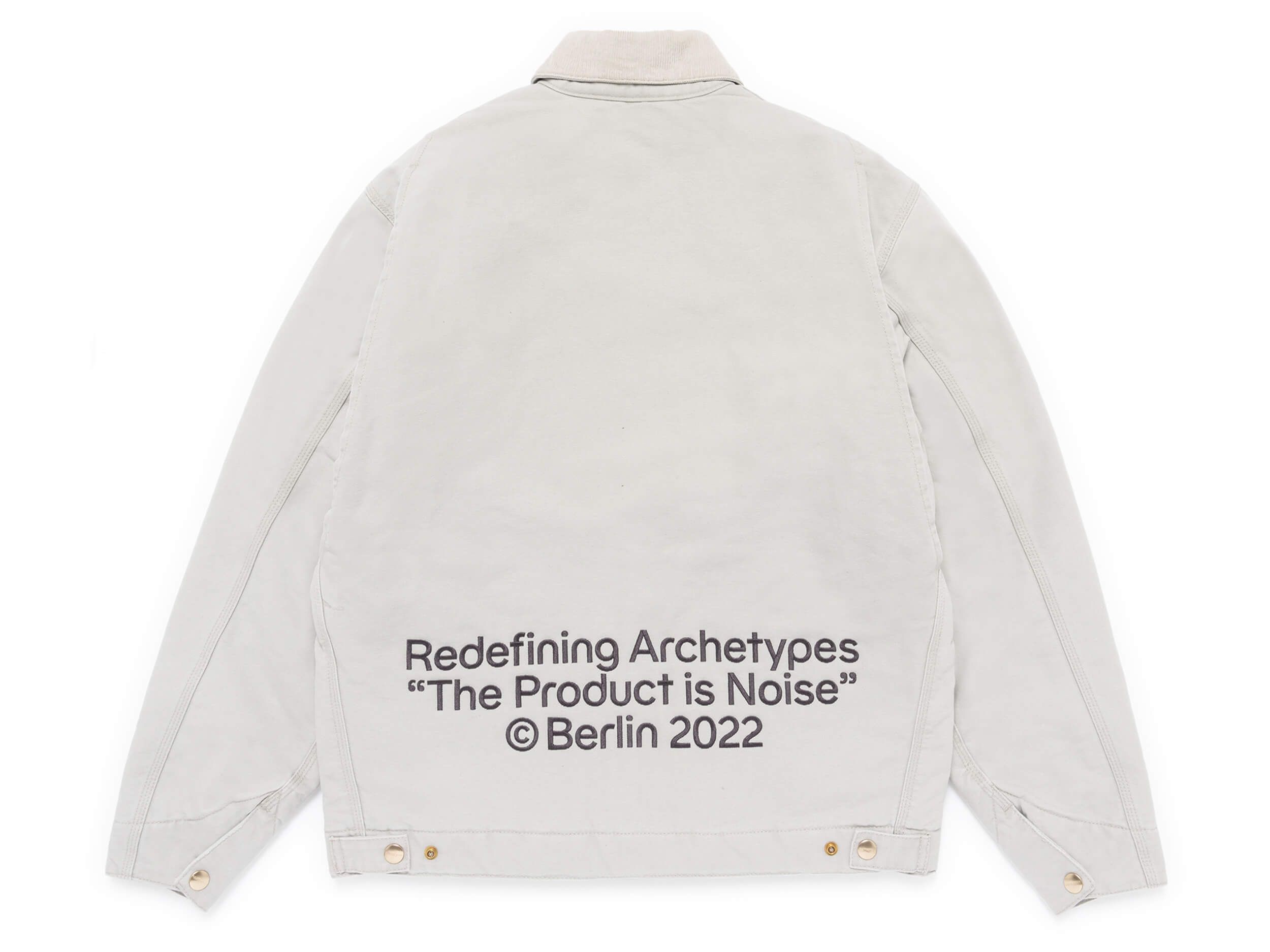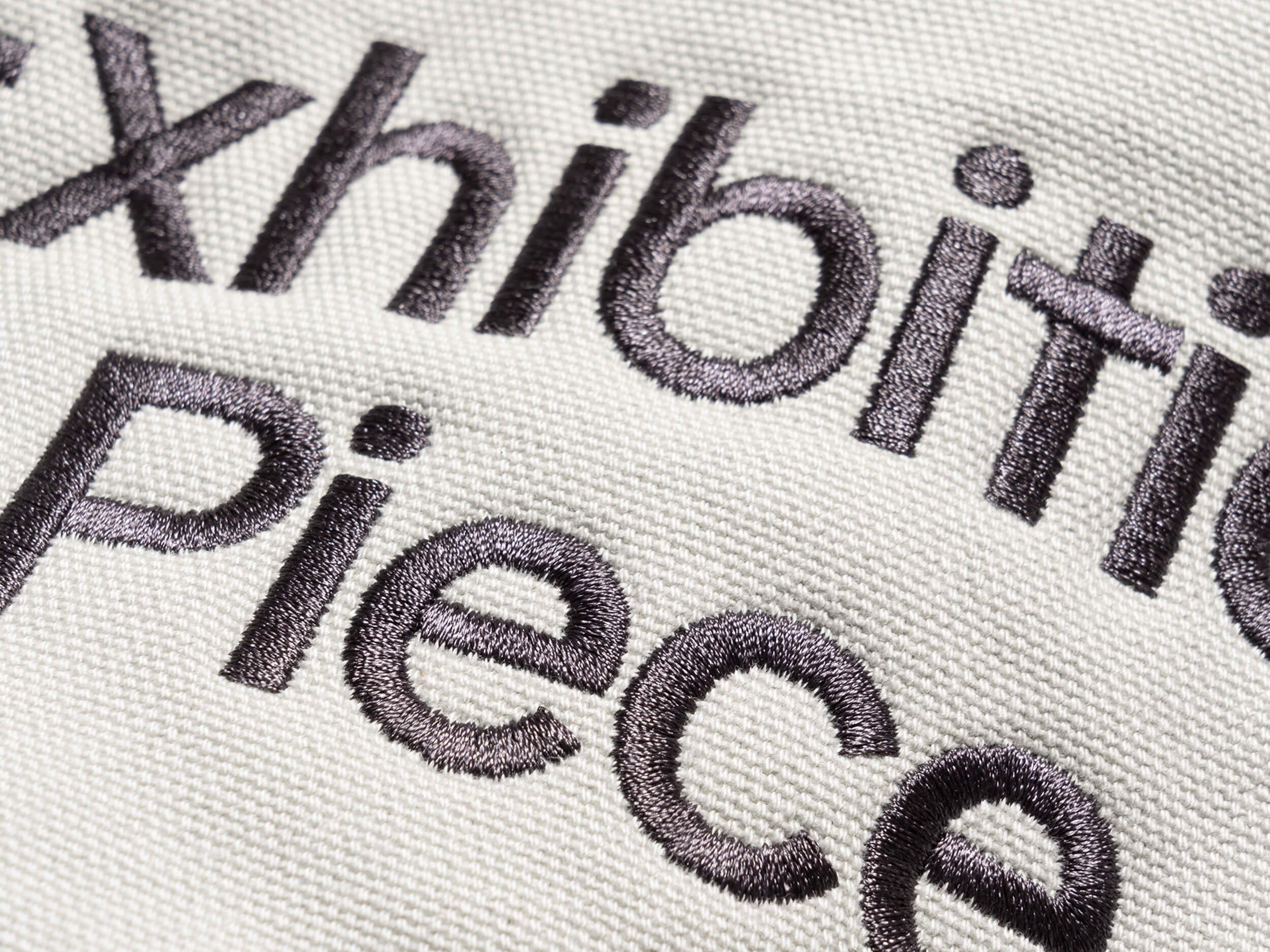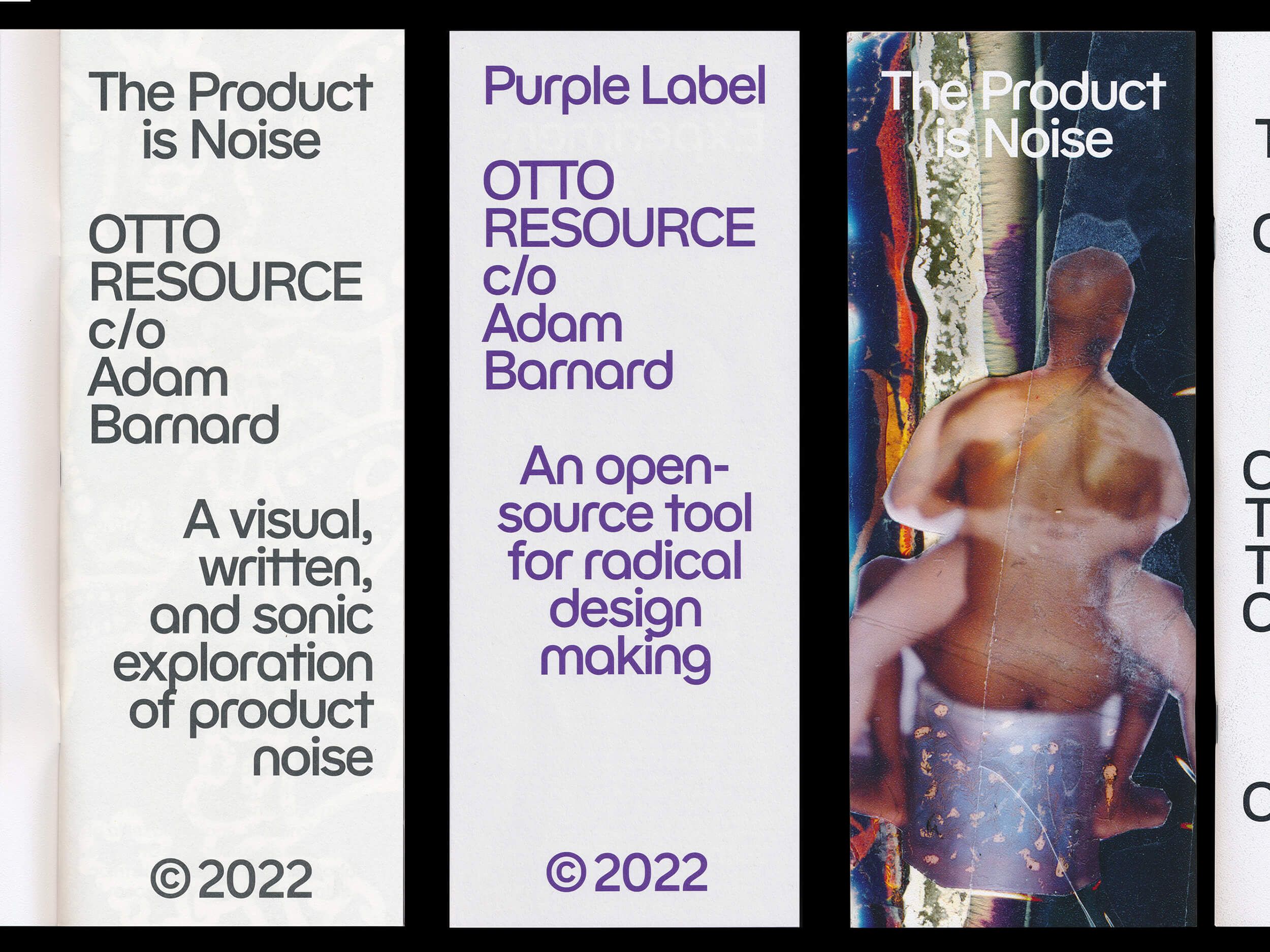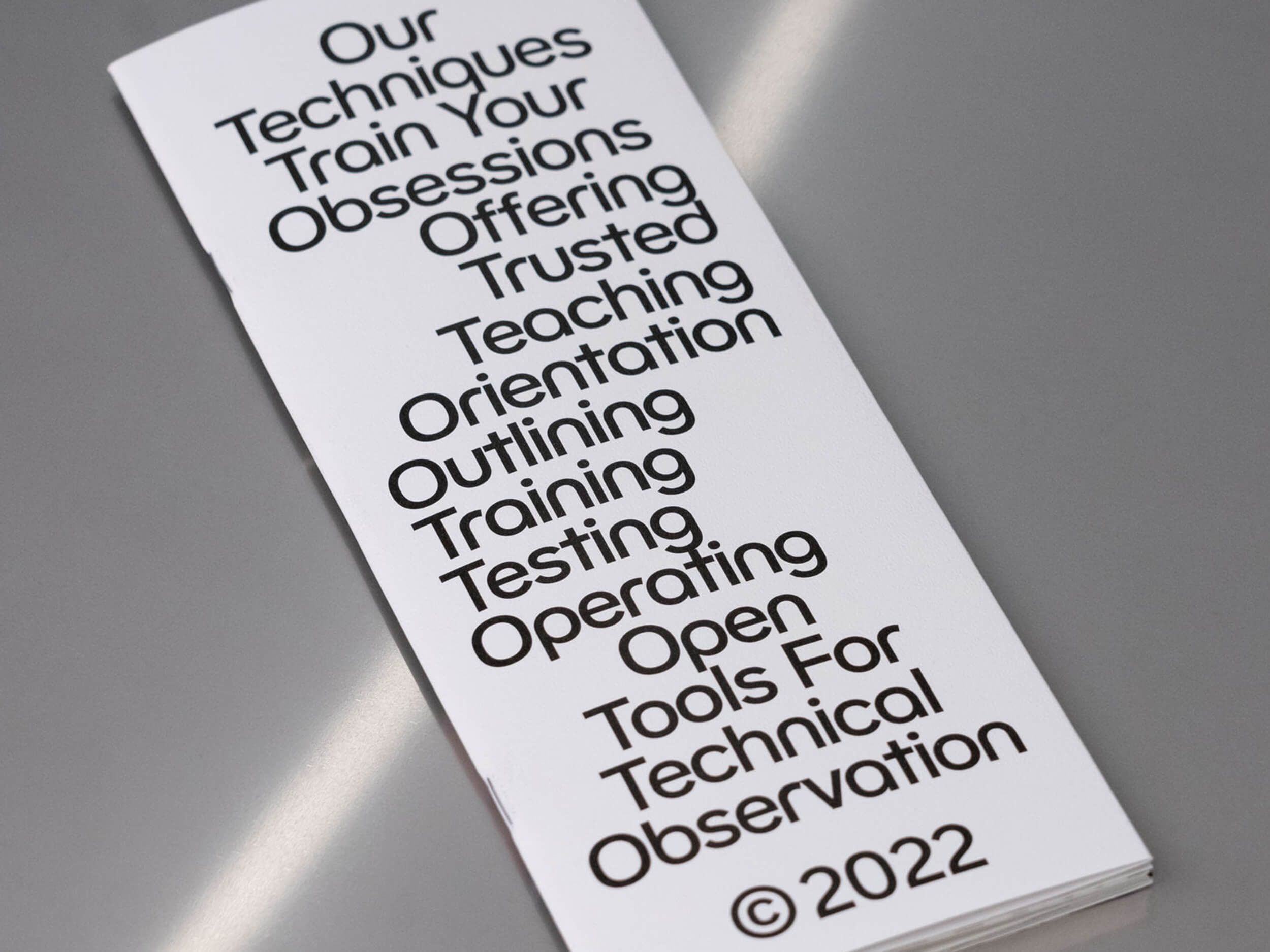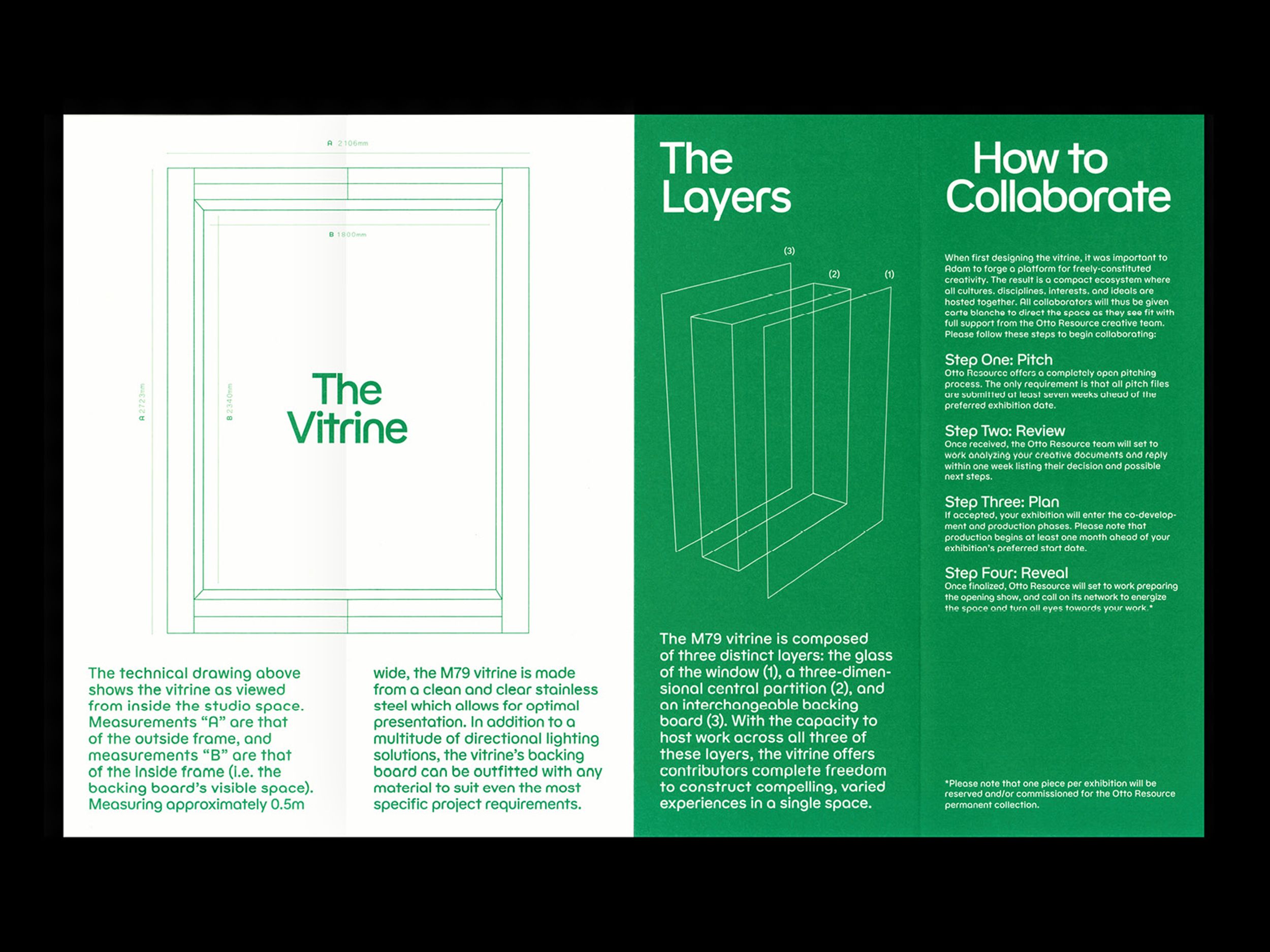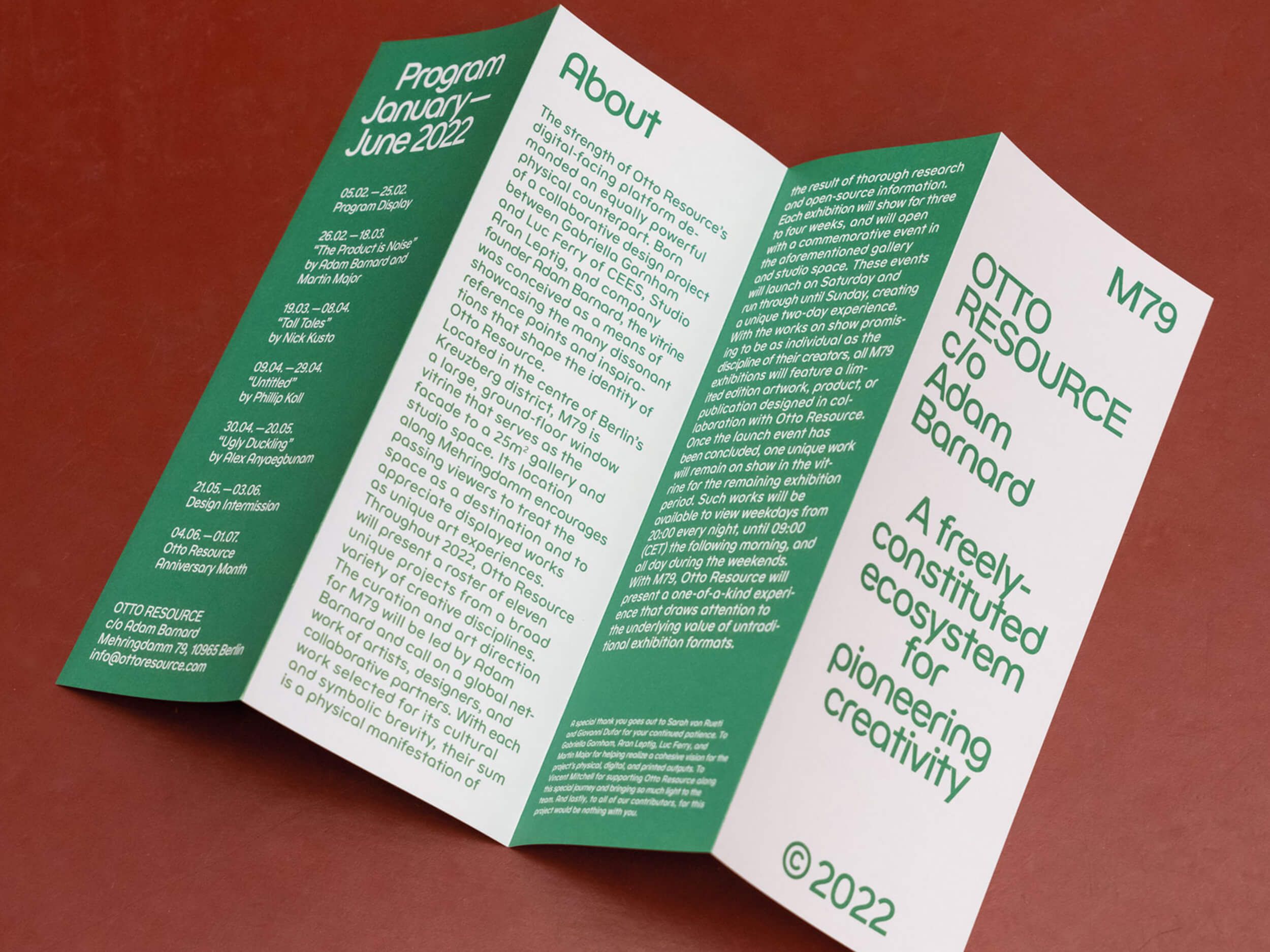
HAL Matex is inspired by schoolbook/textbook grotesques as well as geometric bauhaus aesthetics, apparent in references such as Herbert Bayer’s mid-1920’s, lowercase Universal. The typeface exists in six weights featuring numerous spurless characters with corresponding alternates accessible via opentype stylistic sets.